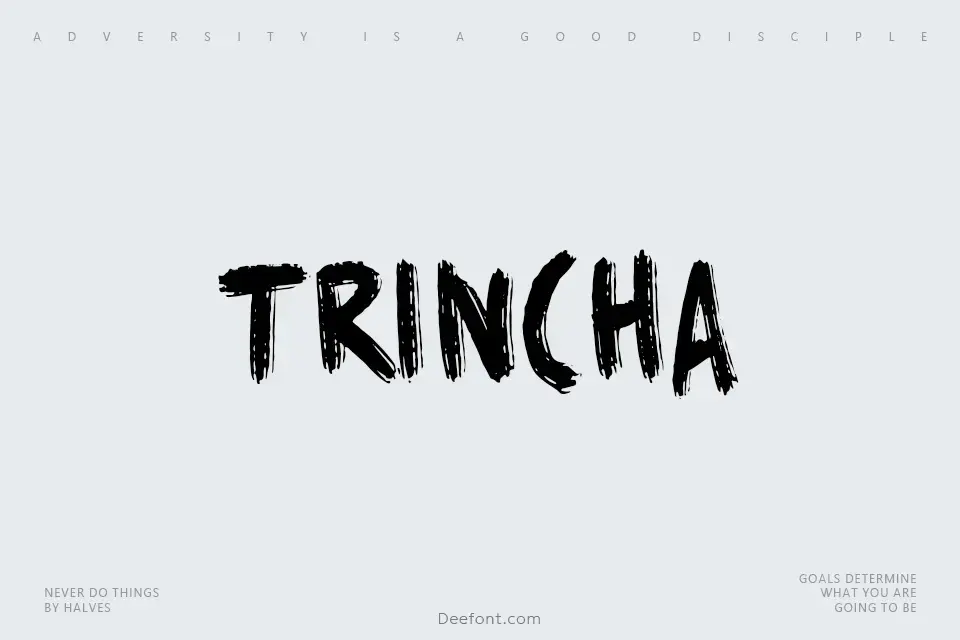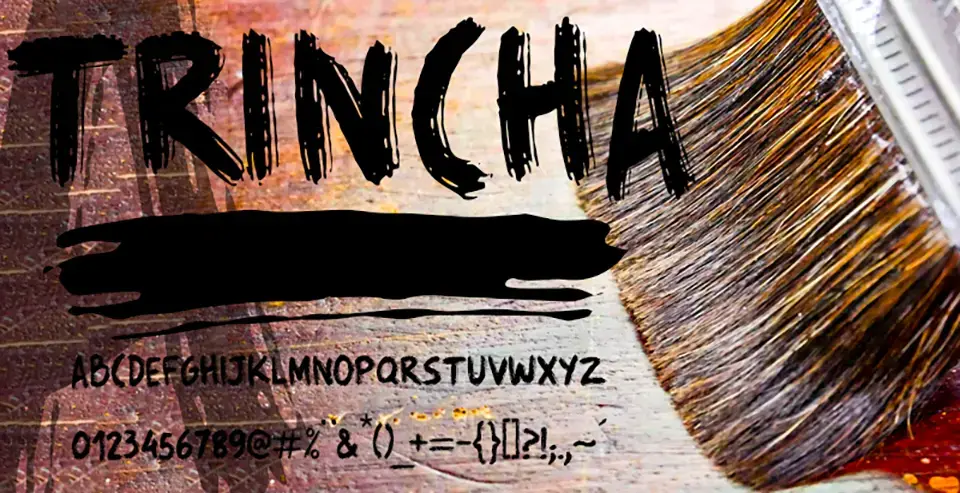
Trincha Font
Trincha is a vibrant brush script font featuring dynamic, hand-painted letterforms with distinctive textured strokes. The typeface combines bold brushwork characteristics with artistic flair, making it ideal for poster design, decorative titles, logo development, and creative branding applications. Its energetic and organic appearance brings authentic brushwork quality to both digital and print projects, perfect for design professionals seeking handwritten authenticity with visual impact.